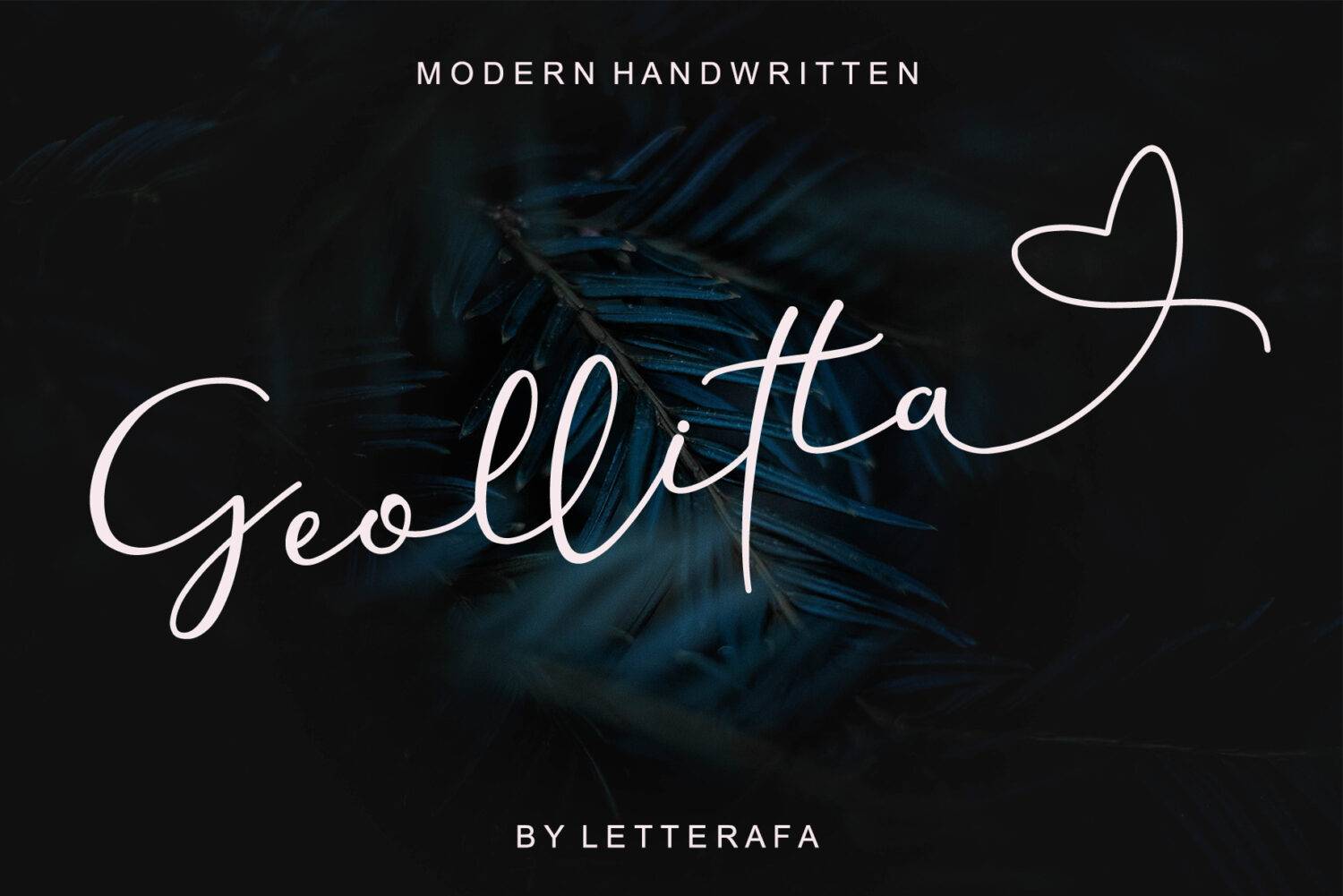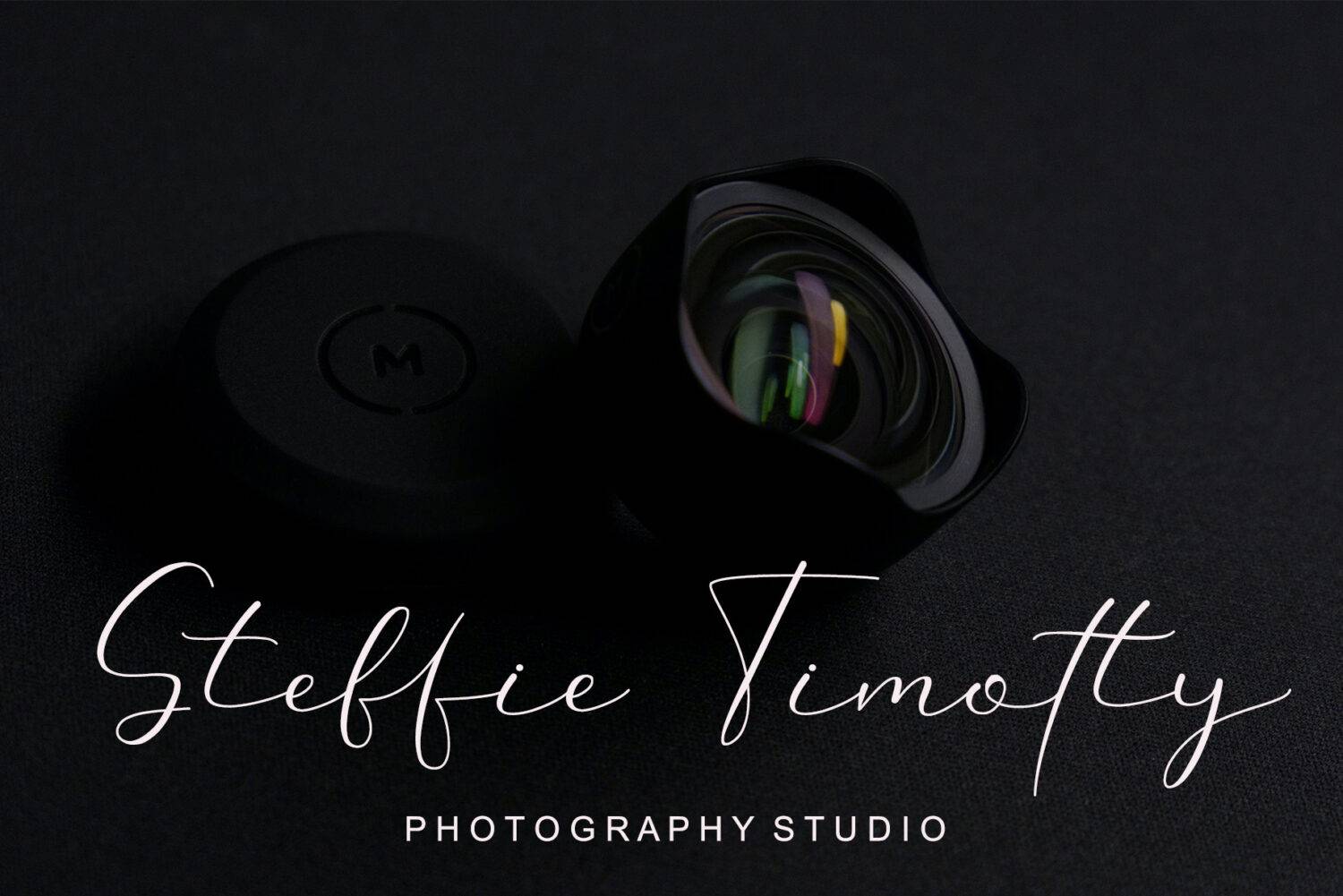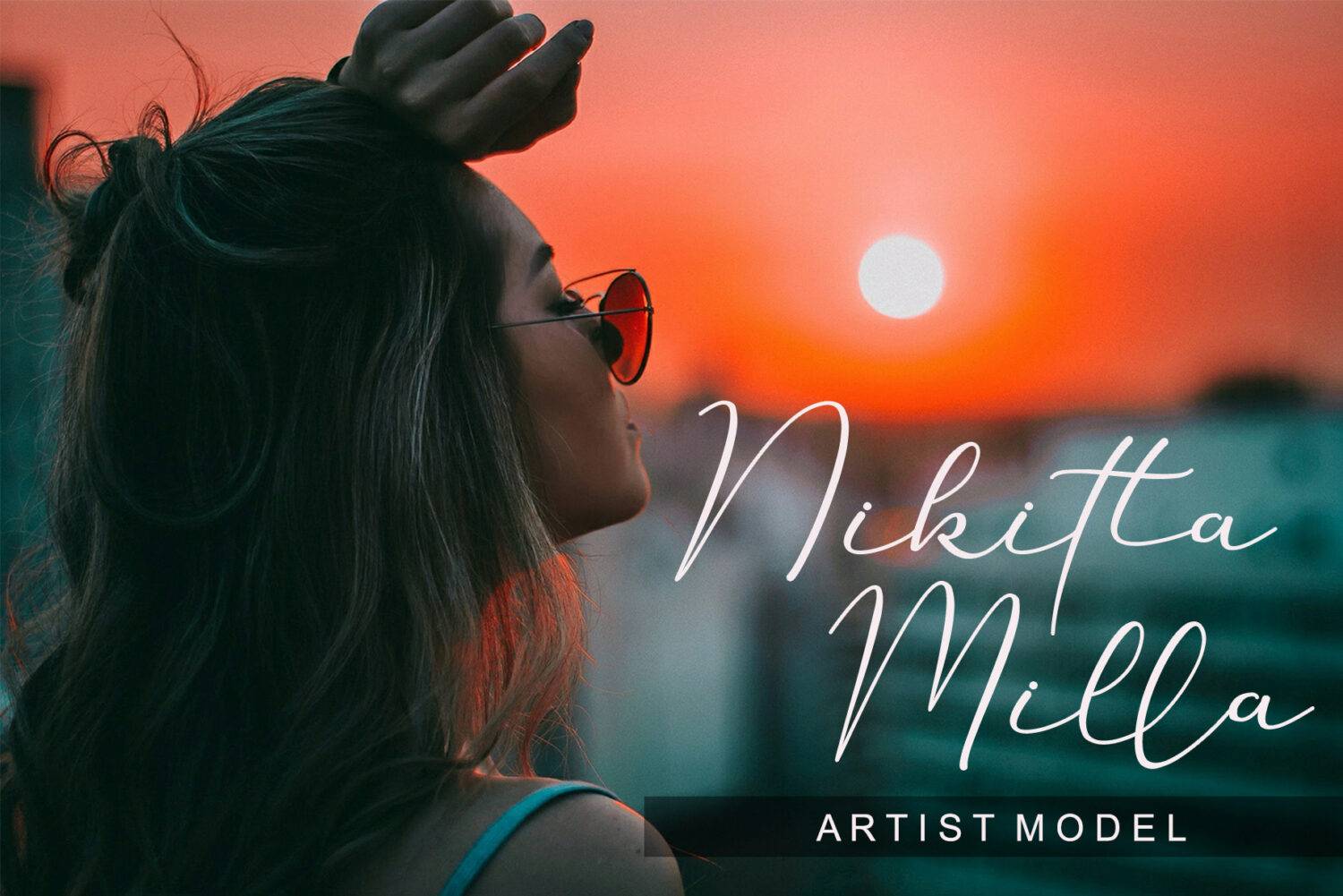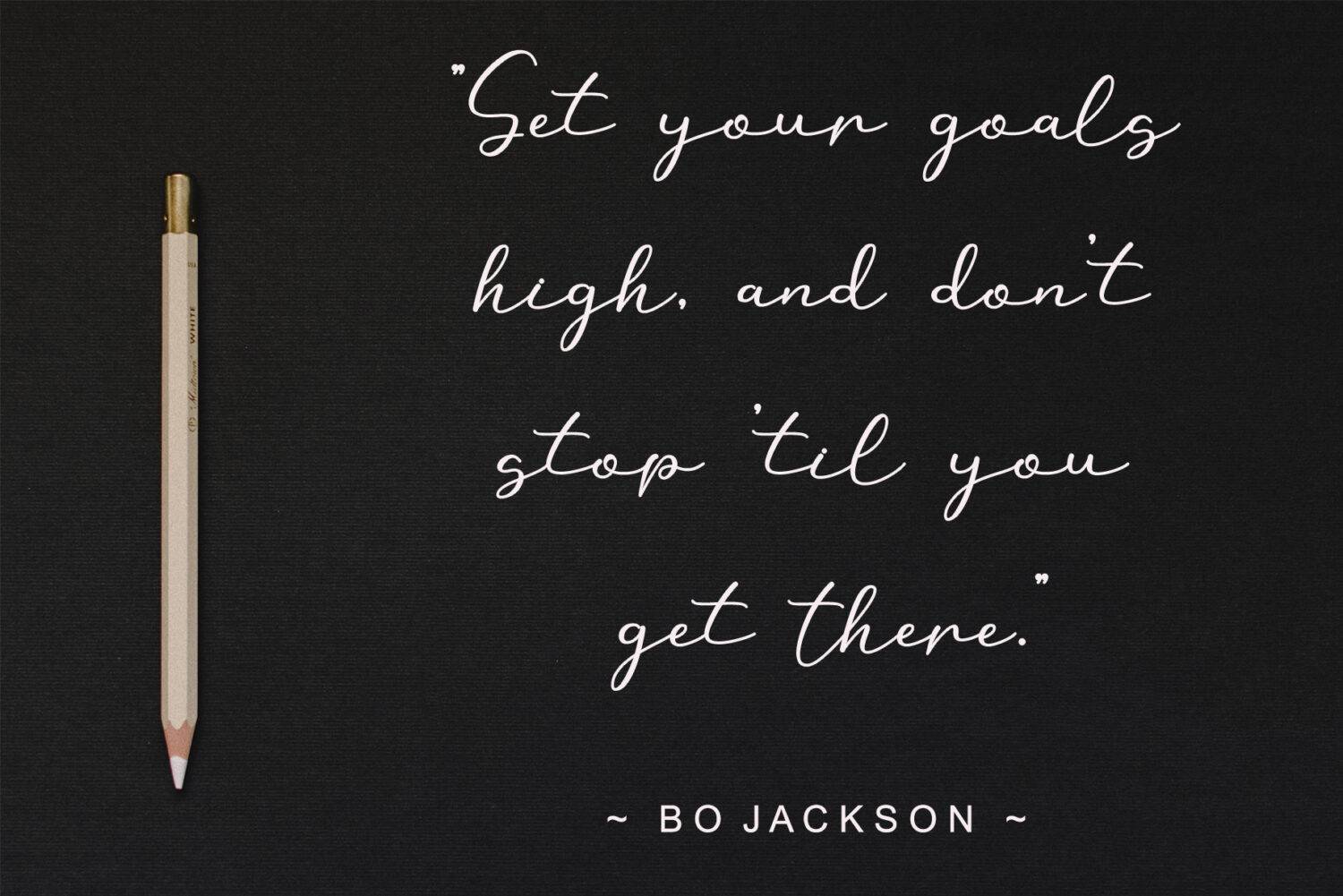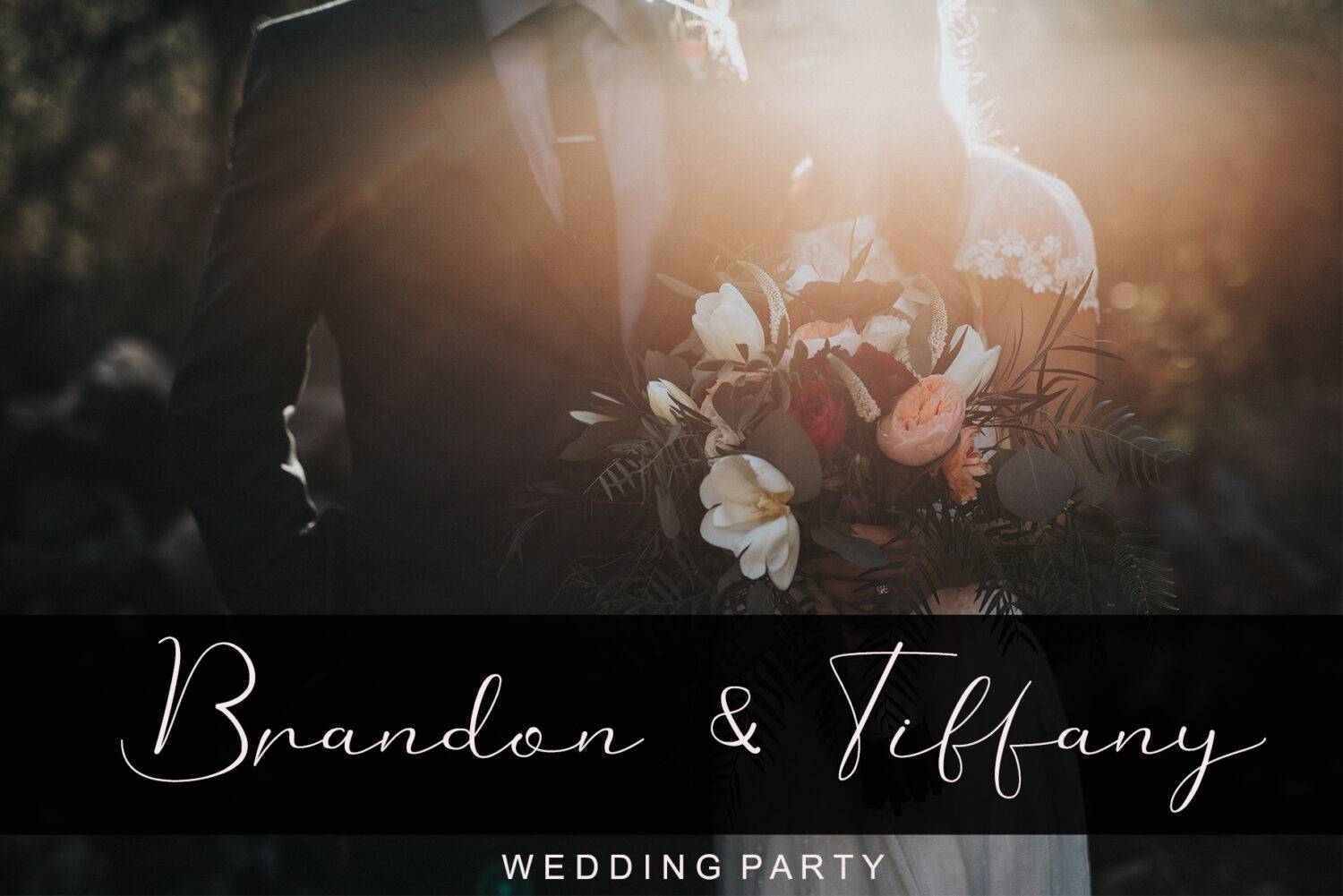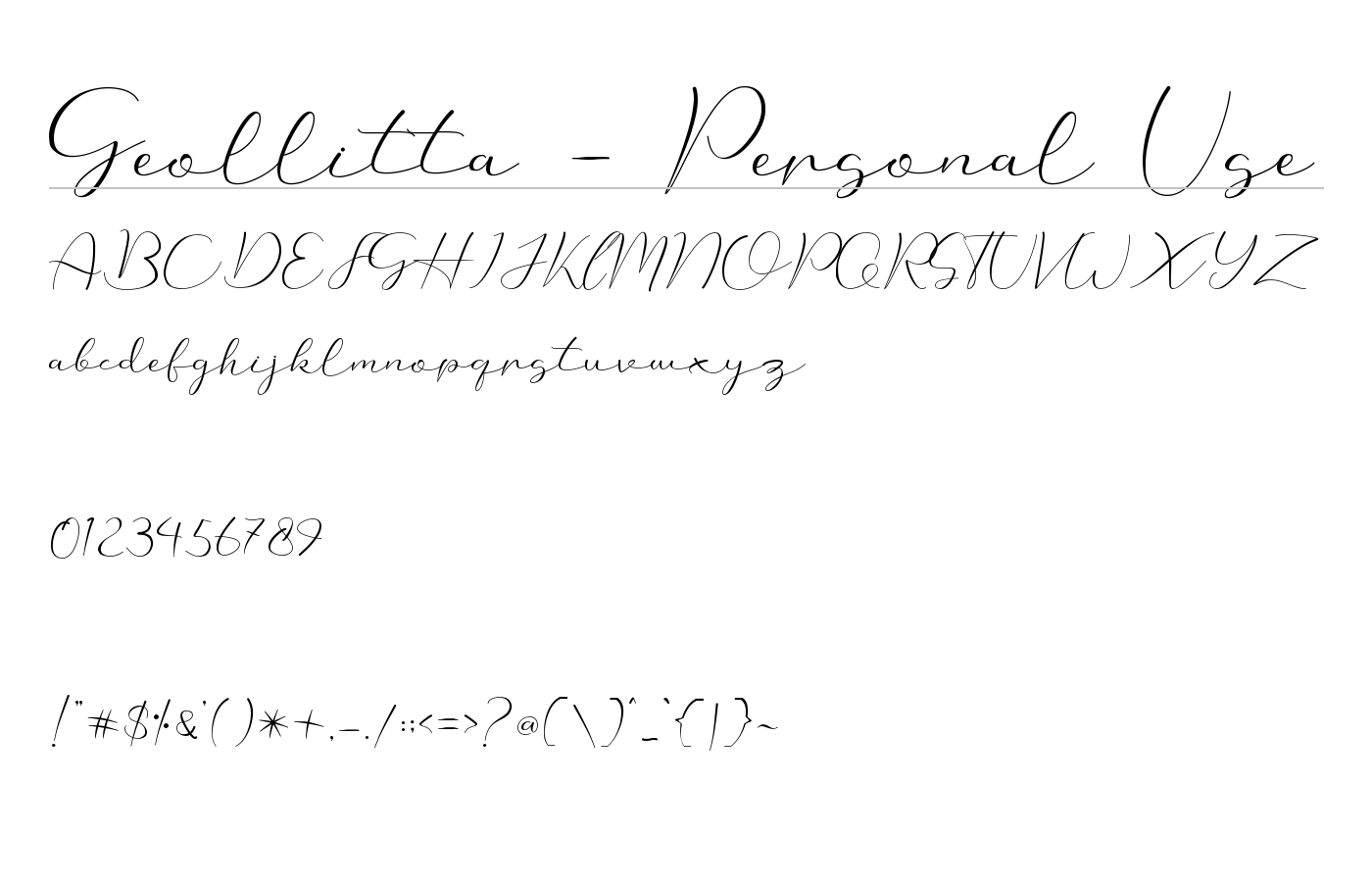
Geollitta is a delicate, elegant script font with thin, flowing strokes that mimic natural handwriting. Its light weight and graceful curves make it perfect for personal invitations, luxury branding, and feminine designs that seek a refined, intimate touch. This font works well in display uses where a subtle, sophisticated personality is desired.
Geollitta Font
About Geollitta Font
| Font family | Geollitta Font |
| Designer | Ahmad Afandi |
| Trademark | Letterafa |